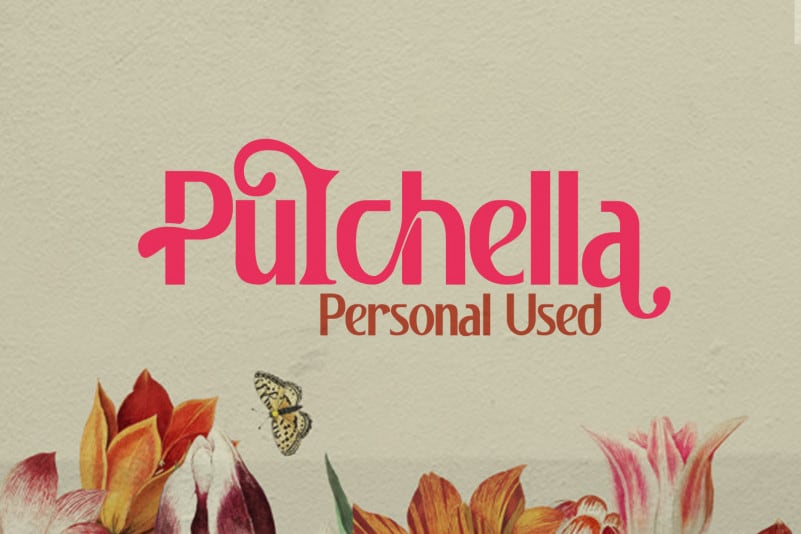
Pulchella Sans Serif Font
Pulchella Font is an elegant editorial style sans serif typeface, carefully crafted to add effortless elegance to your work. It comes with many ligatures and a variety of elegant alternates, which make the font extremely versatile.
You can change it from a clean sans to a graceful accent font in a matter of minutes by turning on ligatures in Photoshop. This font is free for PERSONAL USE.